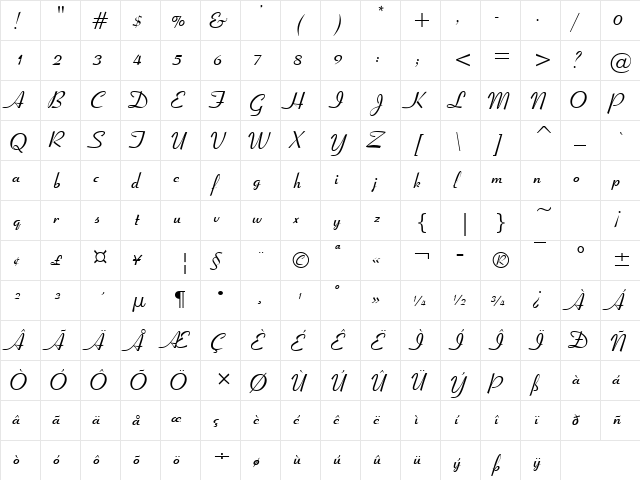
Coronation Script Regular
Coronation Script brings a calligraphic fluidity to the page — its connecting strokes and expressive curves give it an unmistakably human quality.
Font Pairing: Combine Coronation Script with a simple geometric sans for maximum contrast — the tension between flowing curves and clean structure is a classic typographic pairing.
Pro Tip: Pair Coronation Script with a clean sans-serif for supporting text. The contrast between fluid script and geometric structure creates an elegant typographic hierarchy.